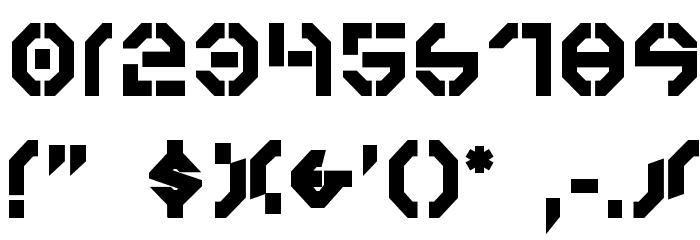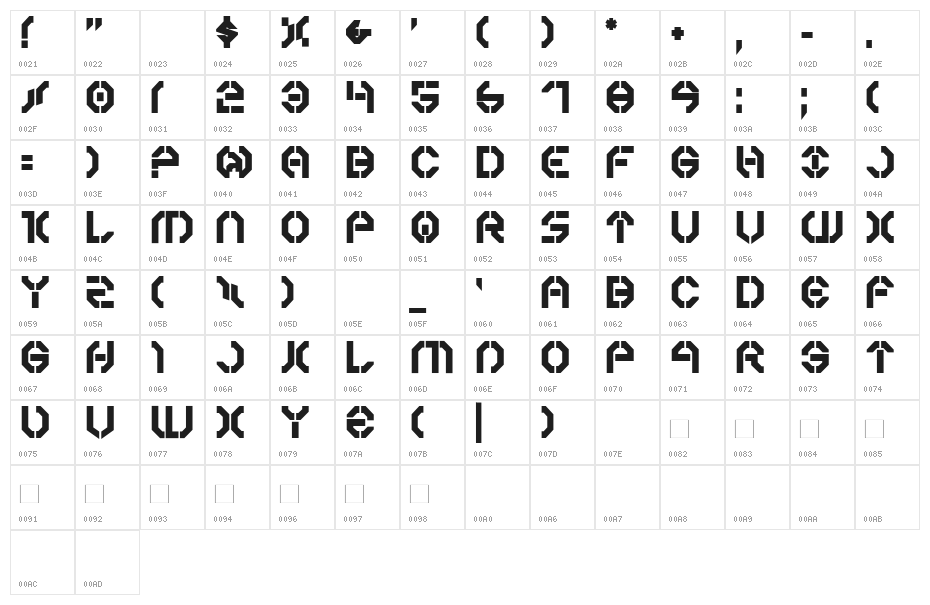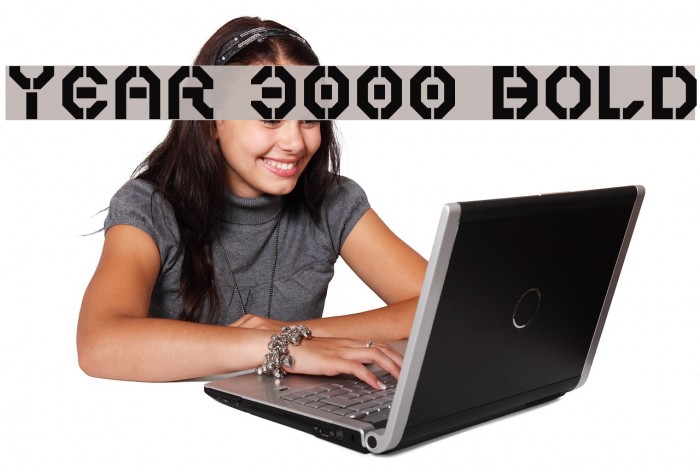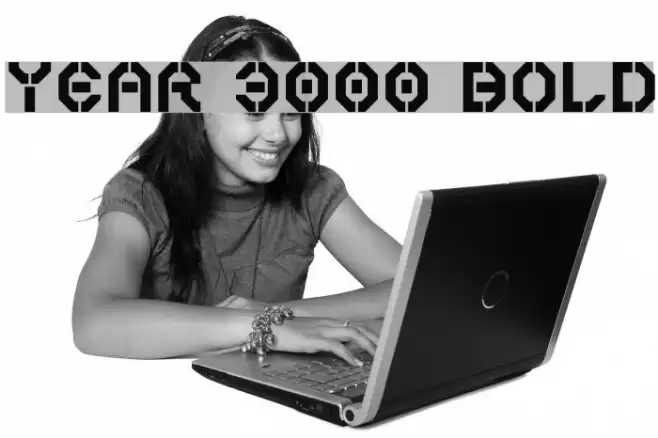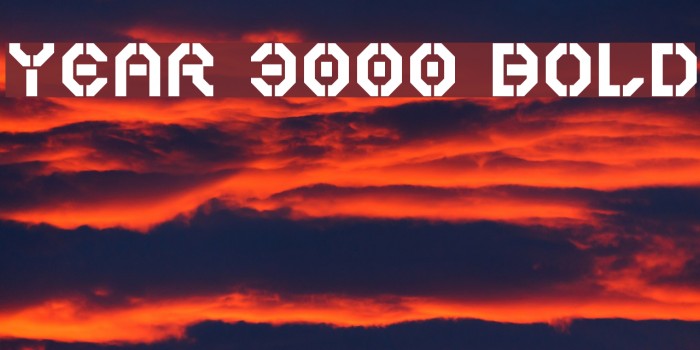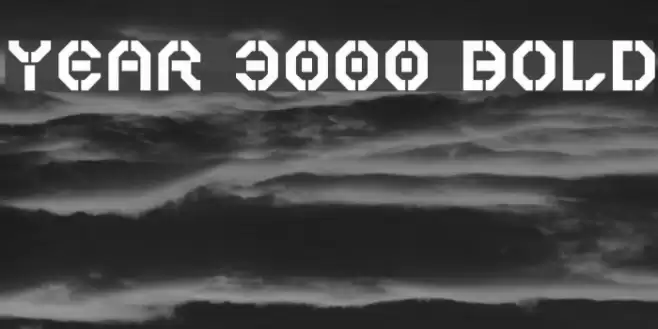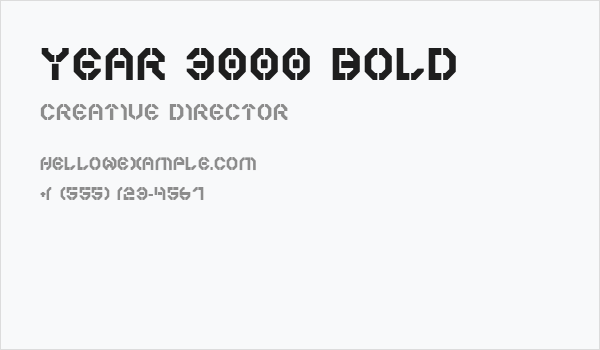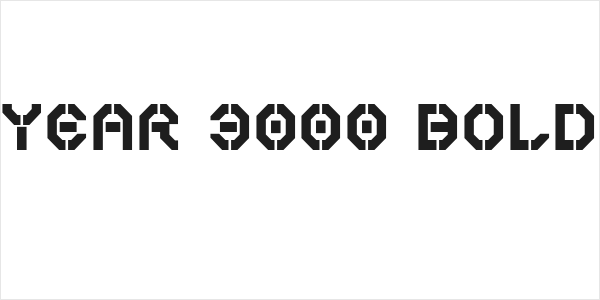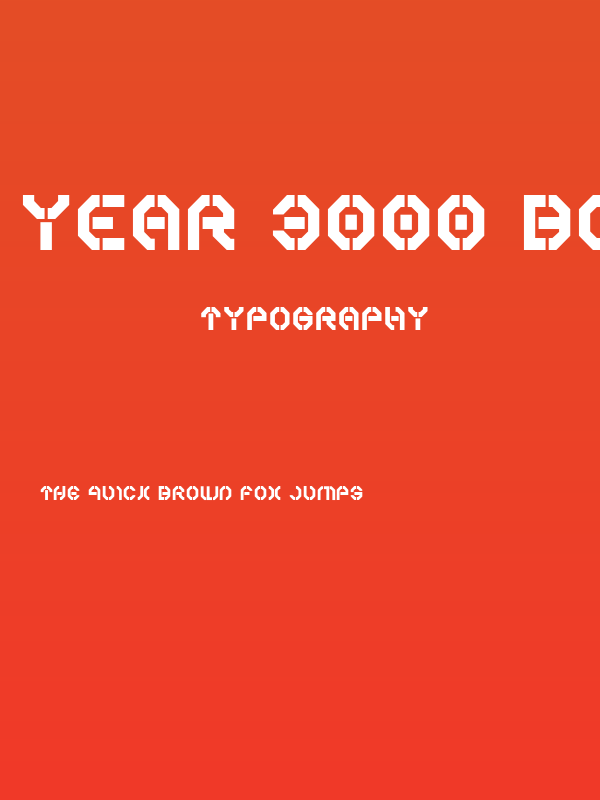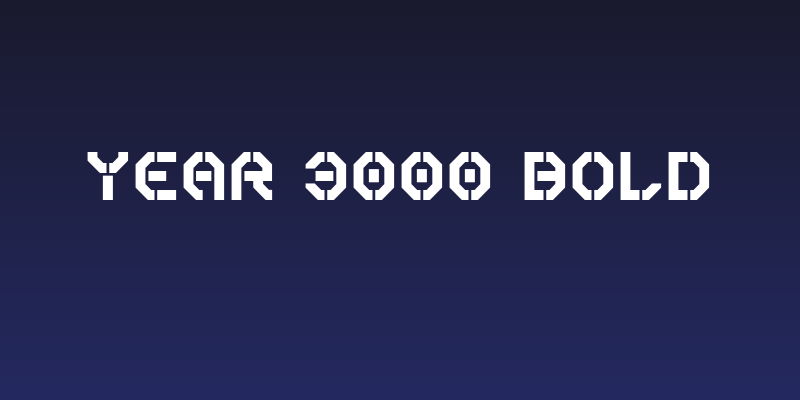
Year 3000 Bold Font
Year 3000 Bold Description
This futuristic font features a bold, geometric design with sharp angles and a blocky appearance. The characters are constructed with a series of straight lines and angular cuts, giving it a distinctly modern and digital feel. The uppercase and lowercase letters maintain a consistent style, with each character appearing as if it were crafted from a series of connected polygons. The numerals and special characters follow the same design principles, ensuring a cohesive look across all glyphs. This font's unique style makes it ideal for projects that require a cutting-edge, tech-inspired aesthetic.
| Proposed Projects | Ideal for tech branding, video game titles, sci-fi movie posters, and digital interfaces. |